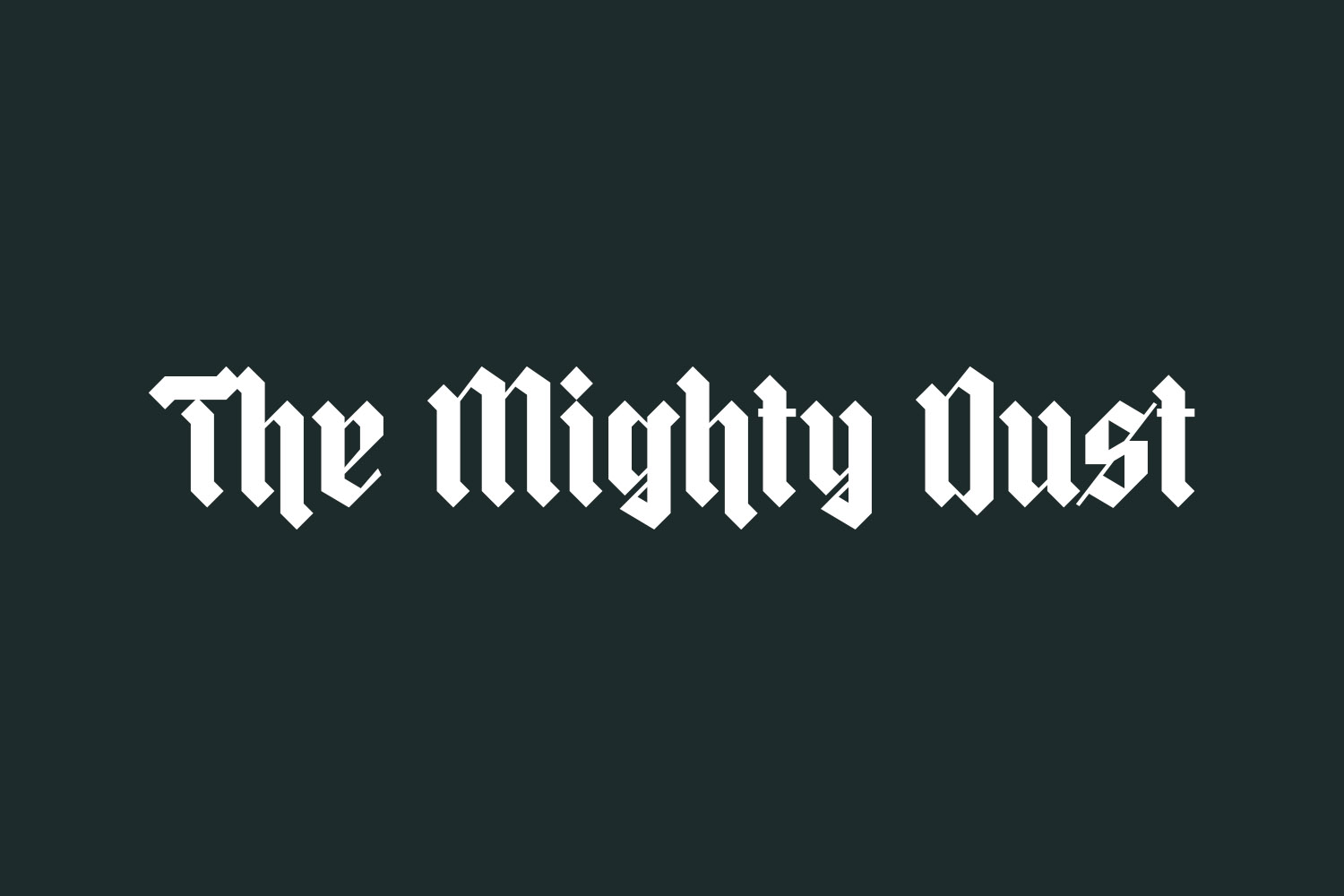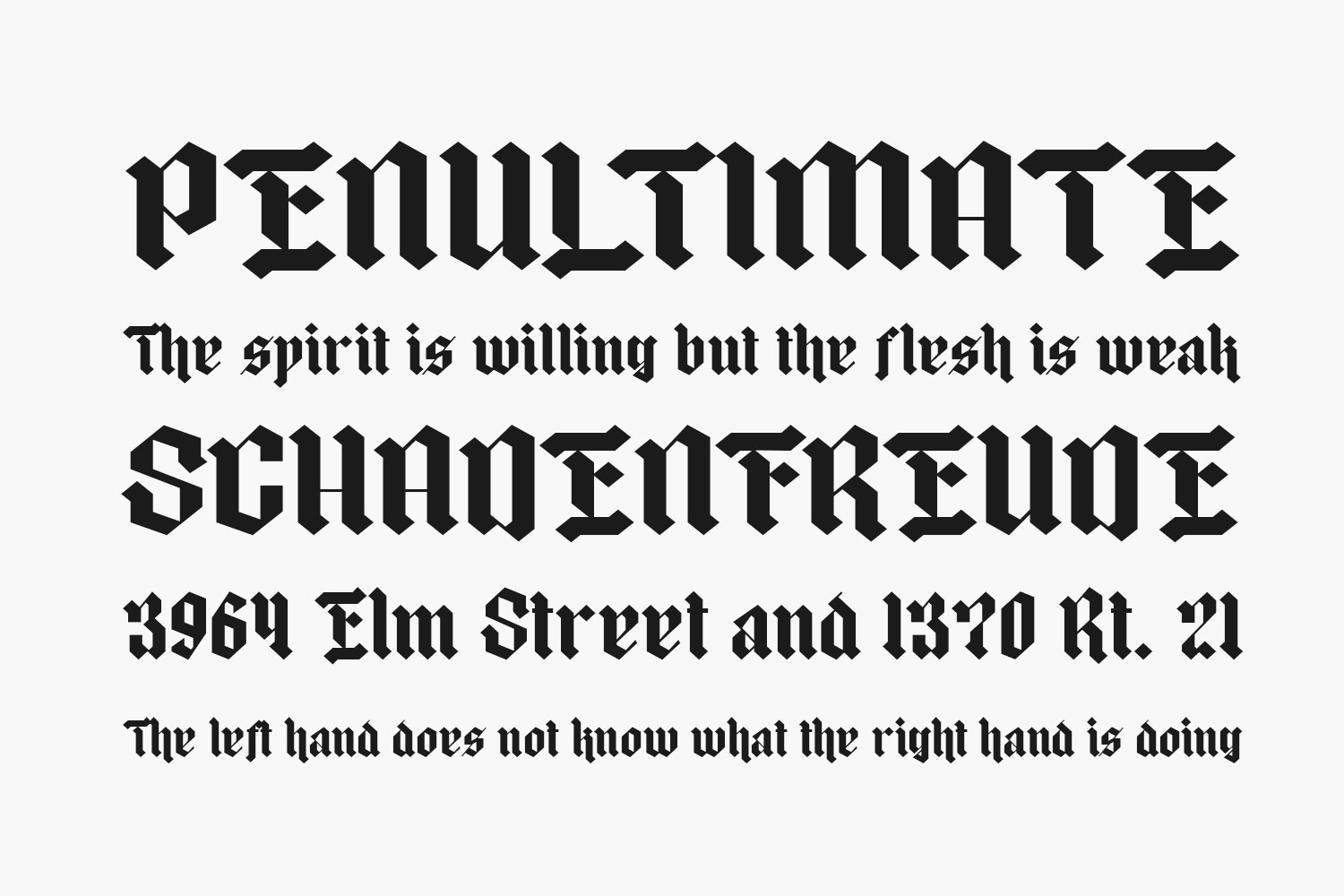
Discover The Mighty Dust Free Font, a powerful and confident blackletter font. This font is an excellent choice for labels, branding, and a wide range of design concepts that demand a distinctive and commanding presence. The Mighty Dust Free Font is free for personal use only. Please purchase the full version for commercial use.